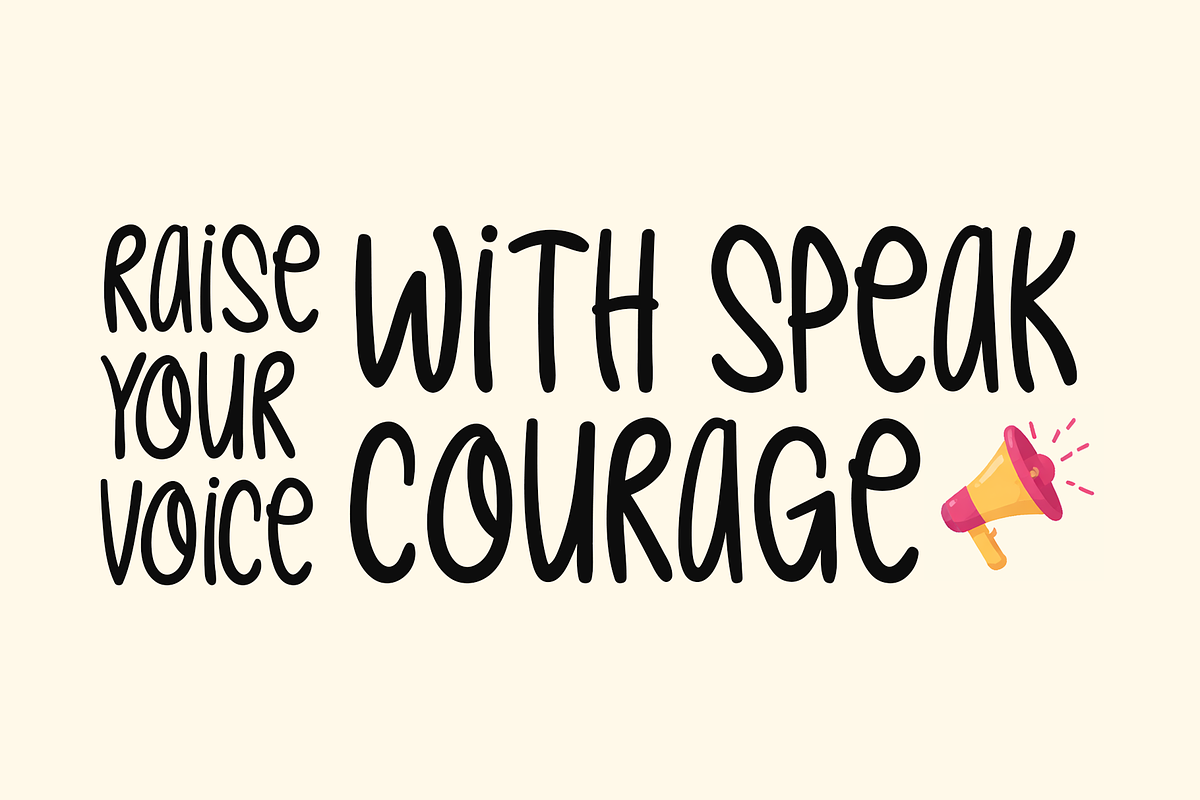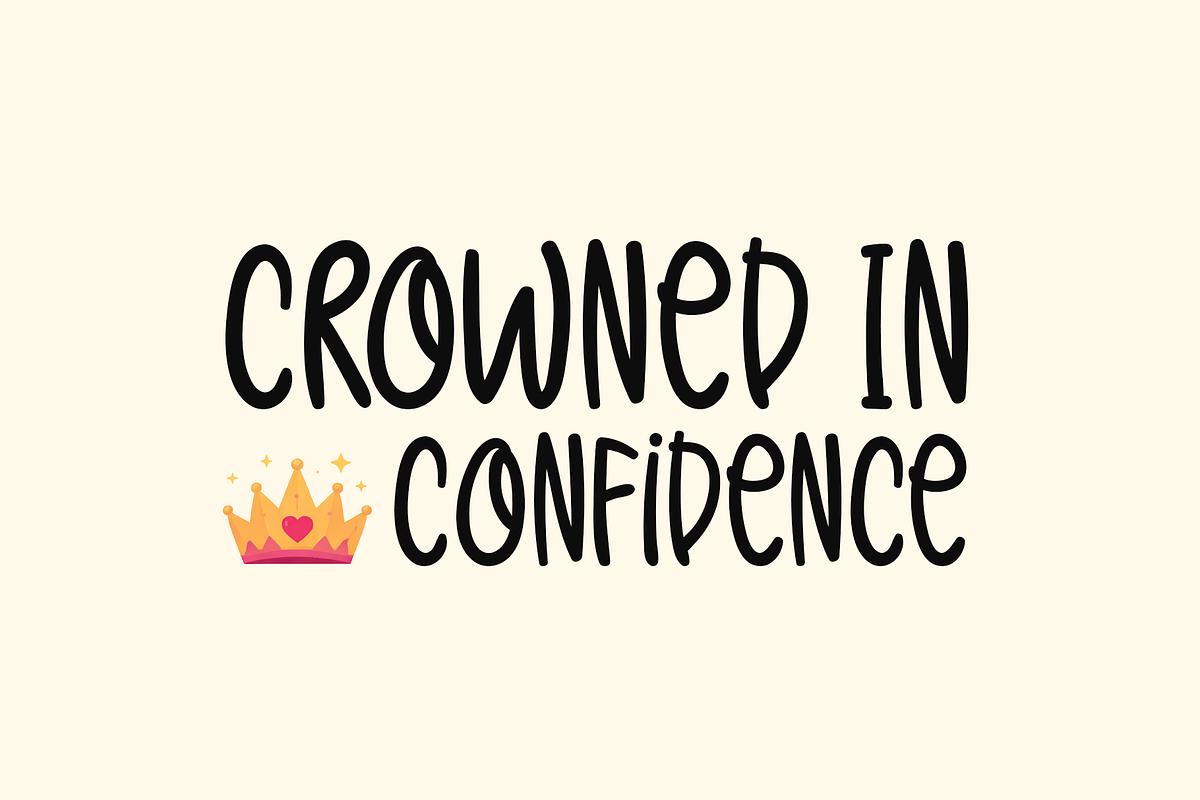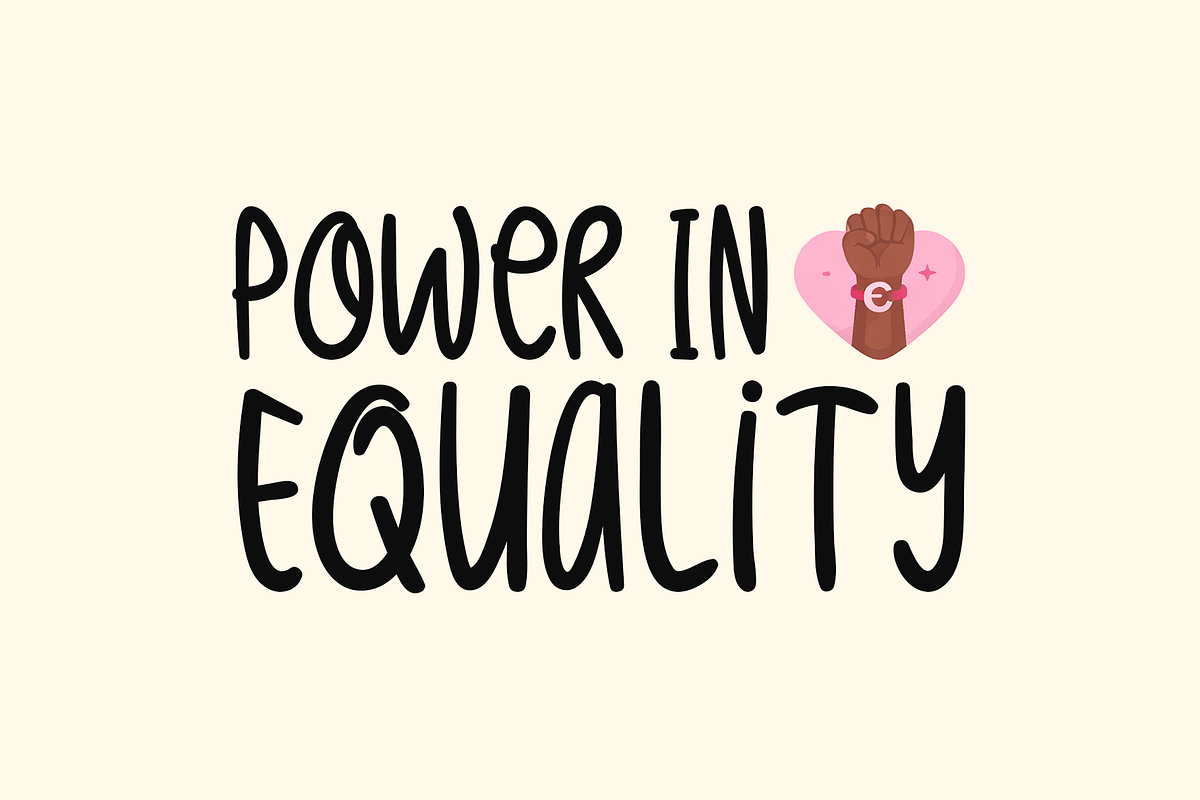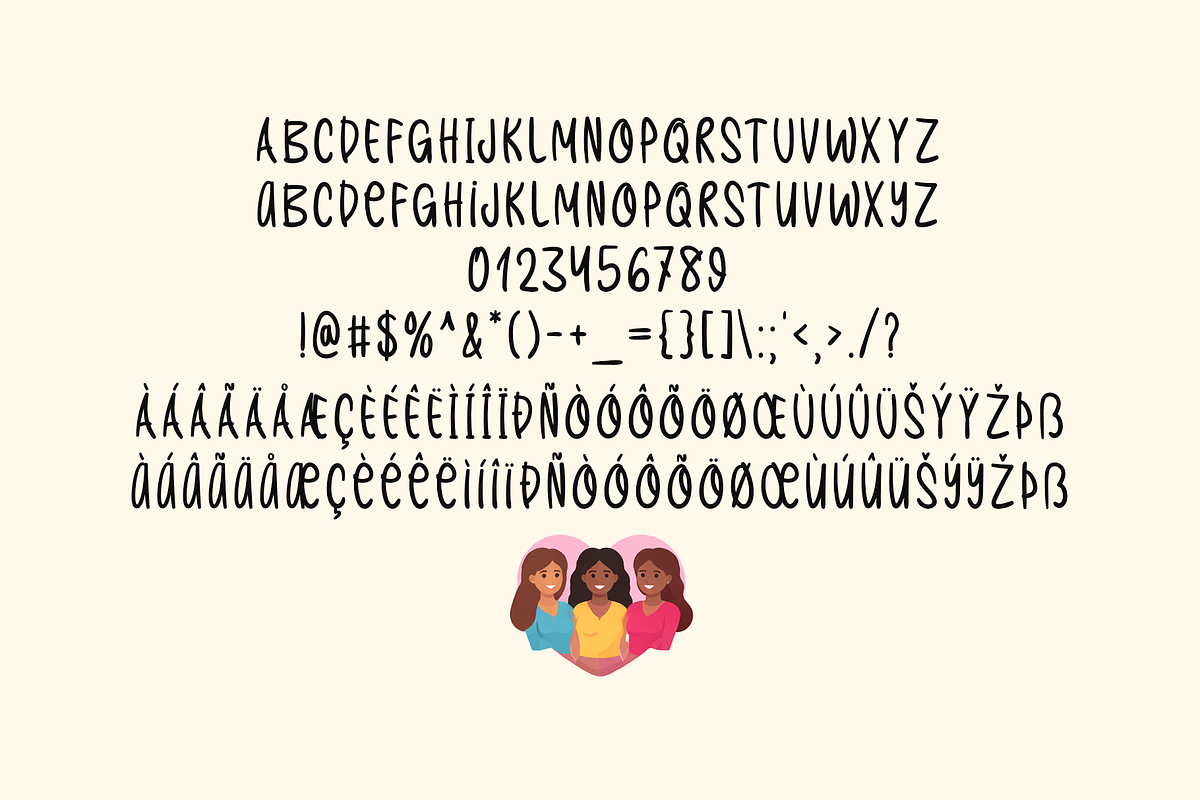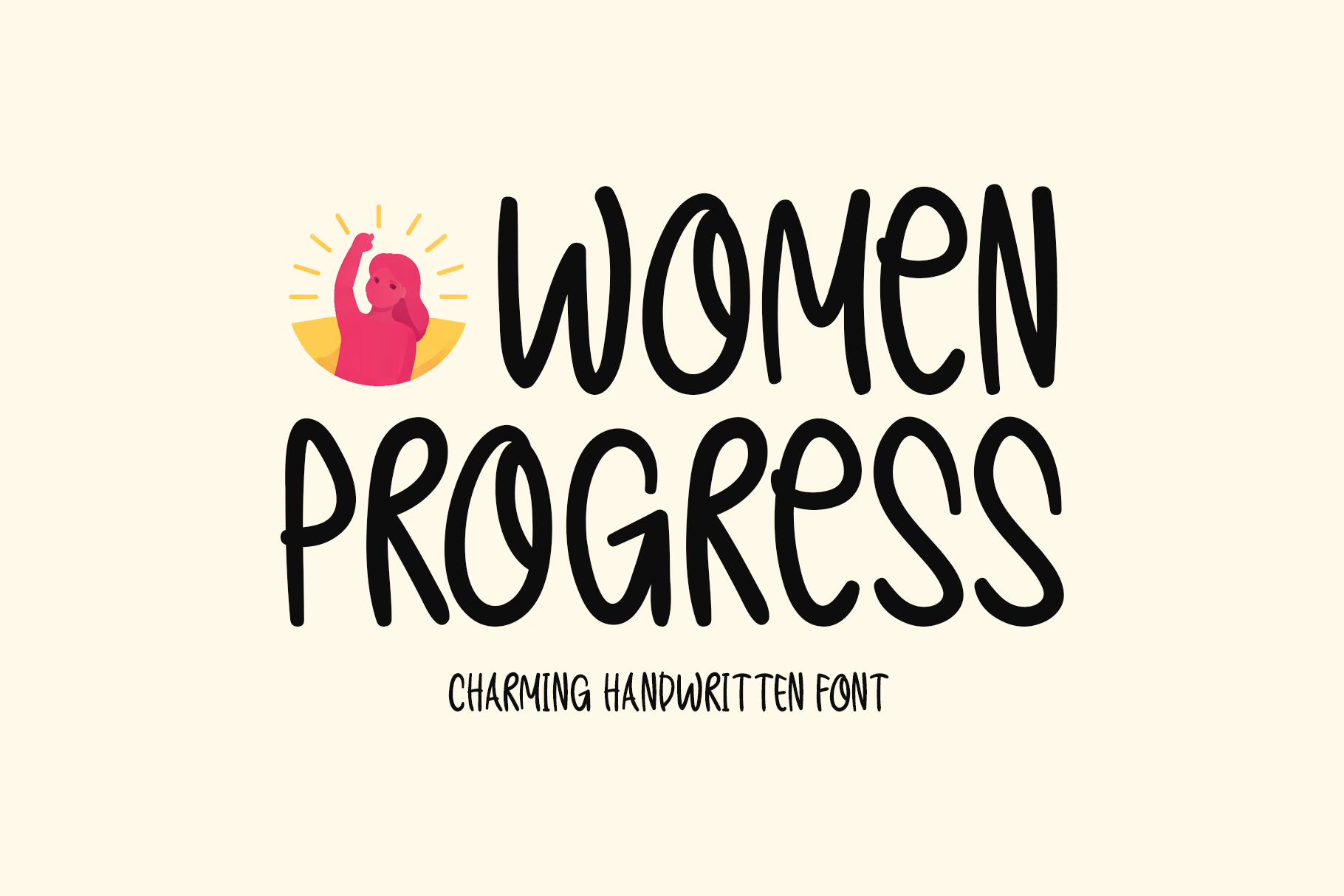
Women Progress Typeface
Introducing Women Progress!
Women Progress is a charming handwritten font designed to express strength, elegance, and positivity. With its smooth strokes and natural flow, it brings a warm and inspiring personality to any creative project. Perfect for stationery, logos, t-shirts, posters, website headers, flyers, music covers, and print materials, Women Progress adds a graceful yet empowering touch that makes every message feel meaningful and uplifting.
Includes a range of multilingual support